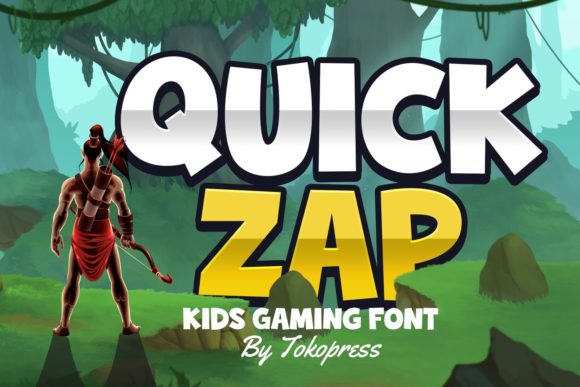
Welcome to the world of Quick Zap, a display font that oozes charm and creativity. This font is your perfect companion for crafting designs that are bursting with personality. Whether you're creating logos for energetic brands, eye-catching social media graphics, or playful website designs, Quick Zap will add a touch of whimsy and fun to your projects.
Dive into a typographic wonderland with Quick Zap, the font that's perfect for expressing your quirky and playful side. Whether you're creating invitations for a lively party, designing T-shirts that pop with personality, or crafting digital content that captivates, this font will bring a smile to your face and those around you.
With its playful curves and energetic lines, Quick Zap is the ideal choice for any design project that needs a spark of creativity and joy. Let your imagination run wild as you explore the countless possibilities that this font offers. From vibrant posters to quirky packaging designs, Quick Zap will elevate your work to new heights.
Unlock your creative potential with Quick Zap, the font that speaks to your adventurous spirit. Embrace the unexpected and let your designs stand out from the ordinary. Its unique style is sure to leave an unforgettable impression on your audience, making your creations truly shine.